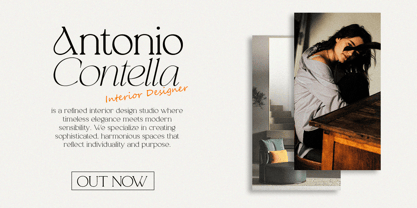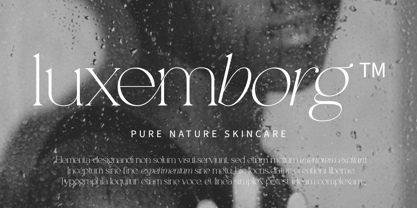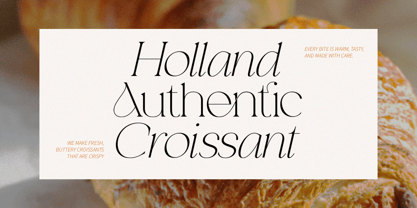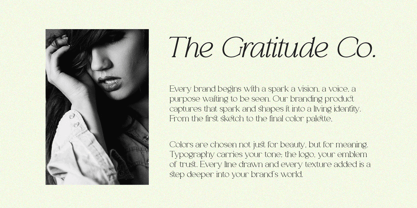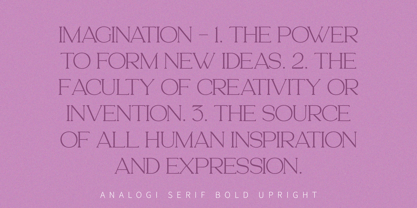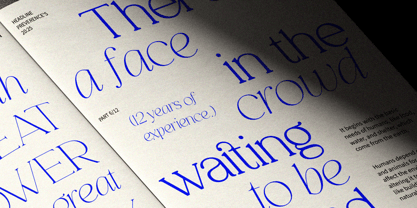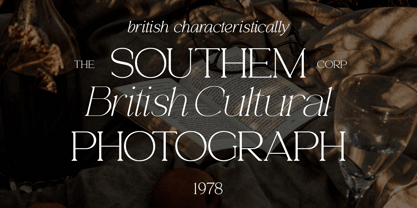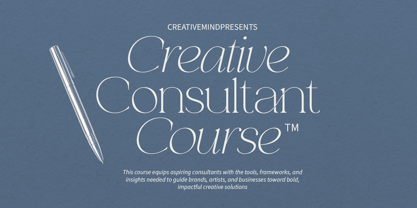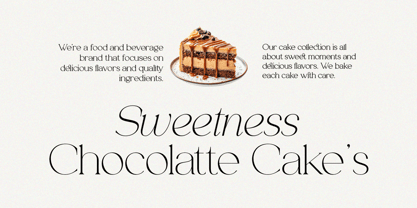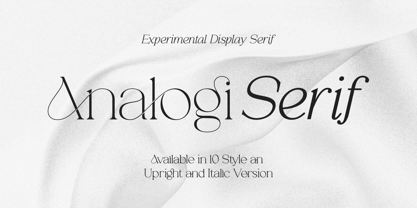
Analogi Serif
by Soft Creative
The Analogi Serif Font Family was designed by Muhajir Akarim and published by Soft Creative. Analogi Serif contains 10 styles and family package options.
Analogi Serif is an experimental serif display typeface designed with an elegant, artistic, and contemporary character. Inspired by classic aesthetics but developed with a modern approach, Analogi Serif comes with smooth curves, sharp details, and a strong feminine touch, making it the perfect choice for design projects that require a luxurious and exclusive feel.
This font consists of 10 complete style files, including Upright and Italic versions and has 2 different Italic styles, and is equipped with many ligatures that enrich the beauty of the typography in every letter combination.
Analogi Serif provides extraordinary flexibility for typographic exploration in various design contexts.
Equipped with rich and diverse ligatures, it allows for aesthetically unified letter combinations, ideal for expressive title and logo compositions.